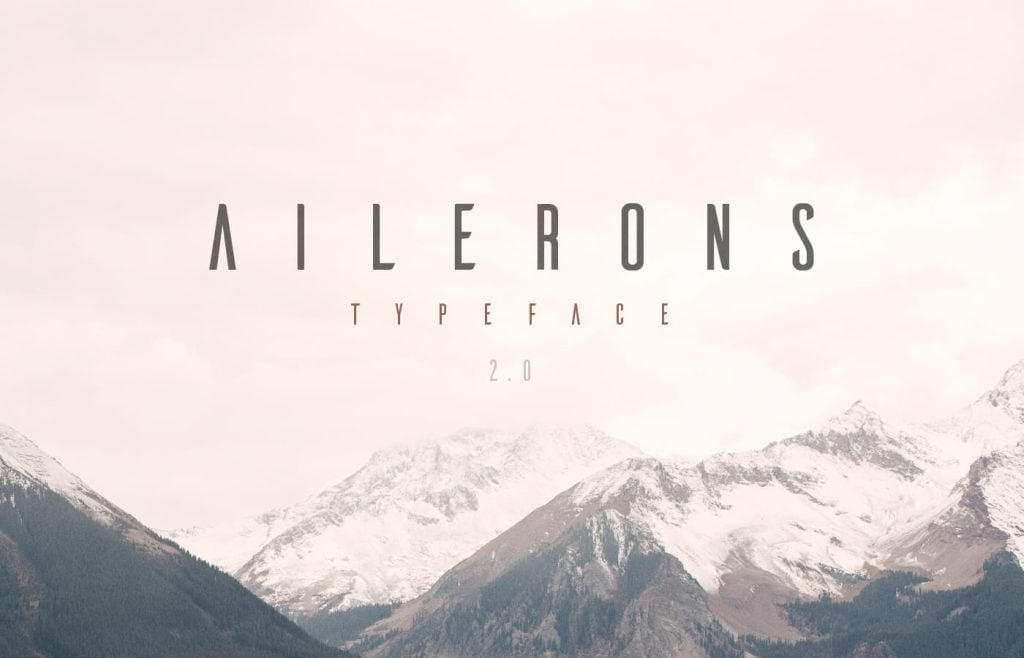
Aileron Font Download - Ailerons font was inspired by aircraft models from. Web explore aileron designed by sora sagano 佐賀野宇宙 at adobe fonts.
Ailerons Font Was Inspired By Aircraft Models From.
Web explore aileron designed by sora sagano 佐賀野宇宙 at adobe fonts.